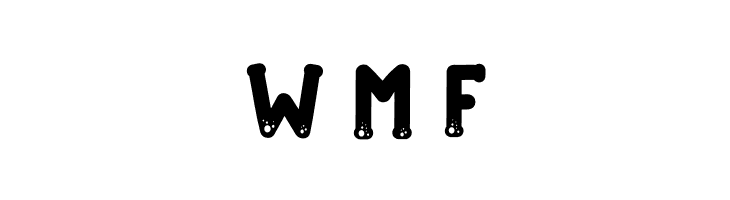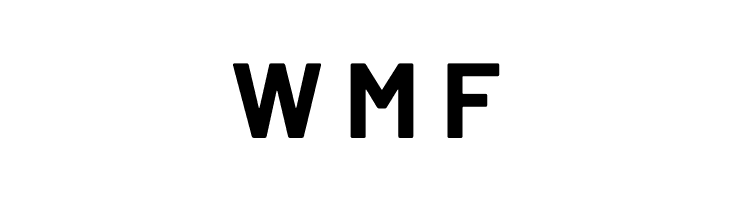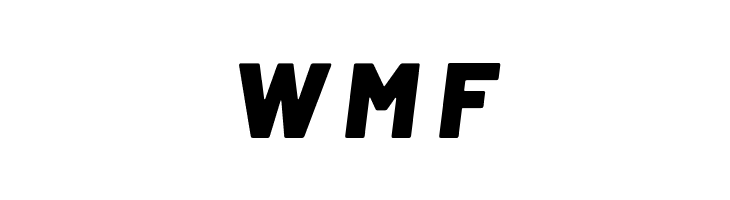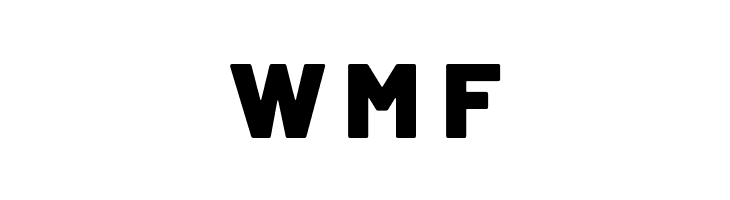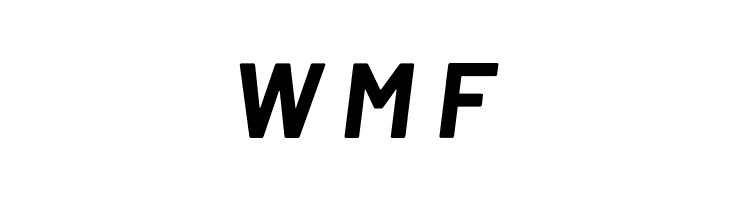
• BARK
• Bark For Life
A bold, block-like font with rounded edges, perfect for impactful designs.
• Bark For Life
A bold, blocky font with a vintage yet modern appeal, ideal for impactful designs.
• Bark Spears
Casual handwritten font with rounded, playful strokes.
• barka
A dynamic, flame-like font with sharp serifs and flowing curves.
• Barkants Black
A bold, artistic font with a hand-drawn, whimsical style.
• Barkants White
A whimsical, hand-drawn font with playful curves and artistic flair.
• Barkelia
An elegant, flowing script font with graceful curves and a sophisticated style.
• Barkeliy
A cursive, handwritten-style font with elegant, flowing letters.
• Barkentina
A classic serif font with elegant curves and refined structure.
• Barker-AllCapsDemo
A bold, distressed, hand-drawn uppercase font with a rugged, vintage look.
• BarkingCatDEMO
A playful, hand-drawn font with bold, uneven strokes.
• barkode Regular
A barcode-inspired font with vertical lines creating a modern, futuristic look.
• Barkoly Bold
A bold, playful font with rounded edges and decorative cutouts.
• Barkoly Slim